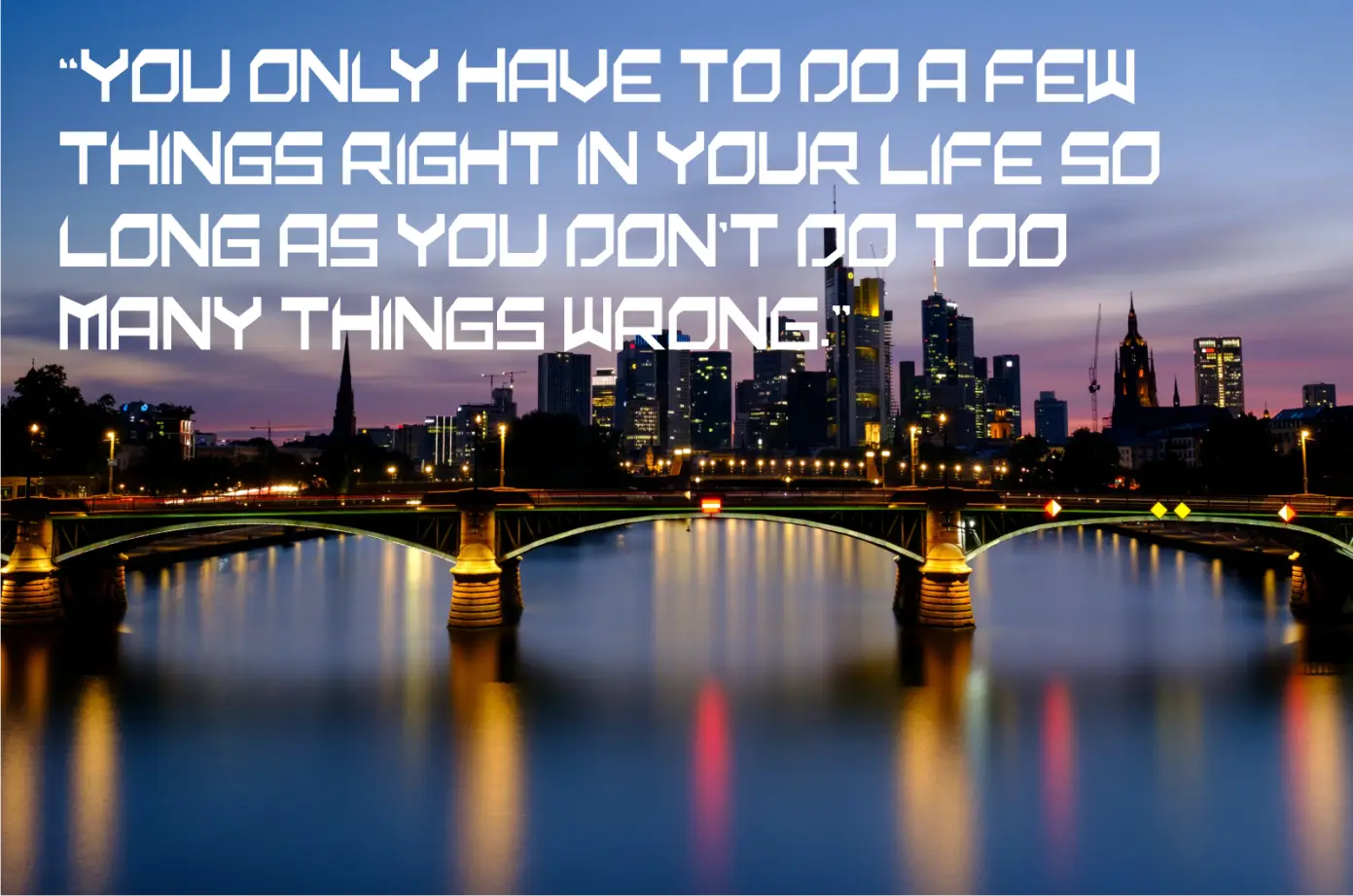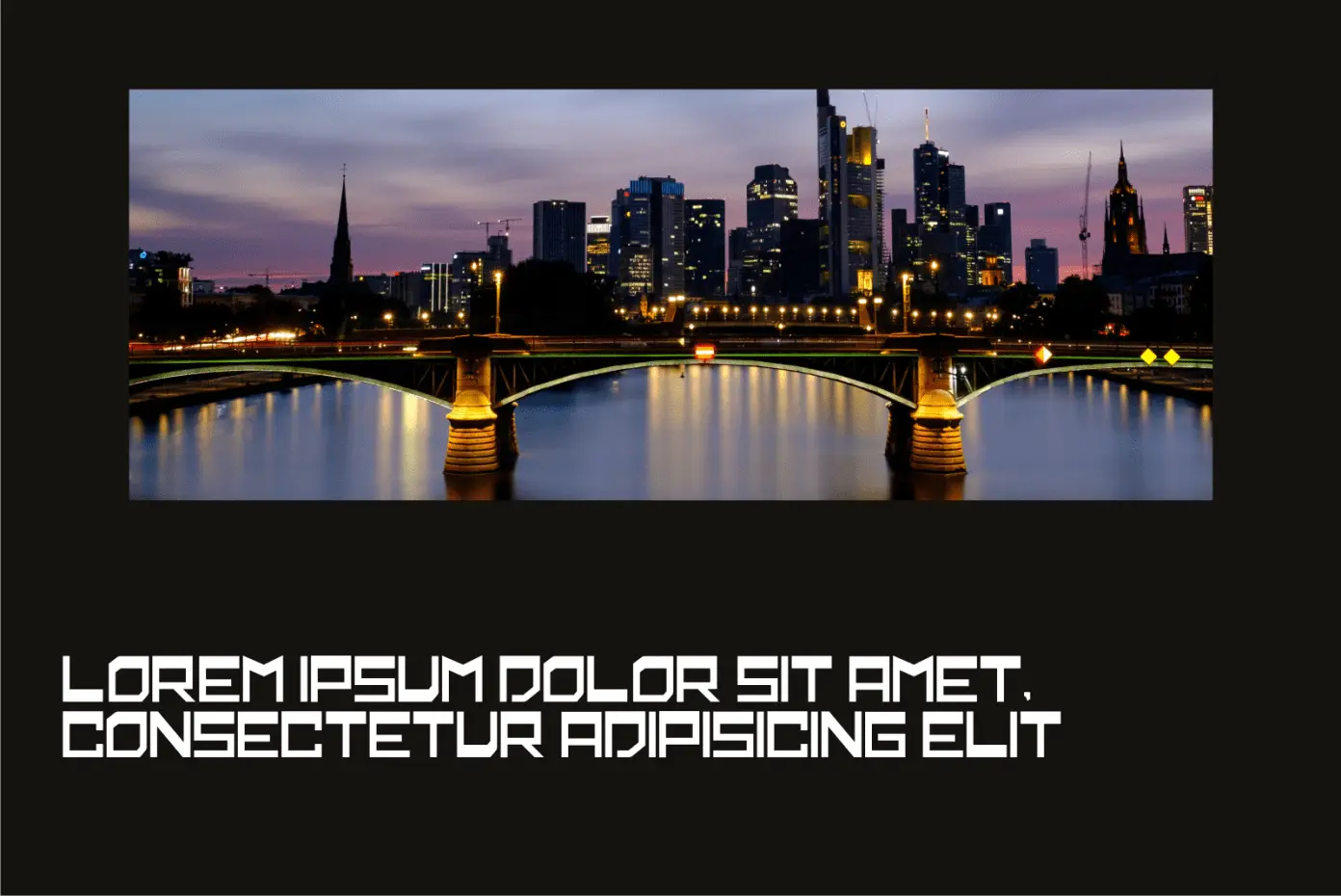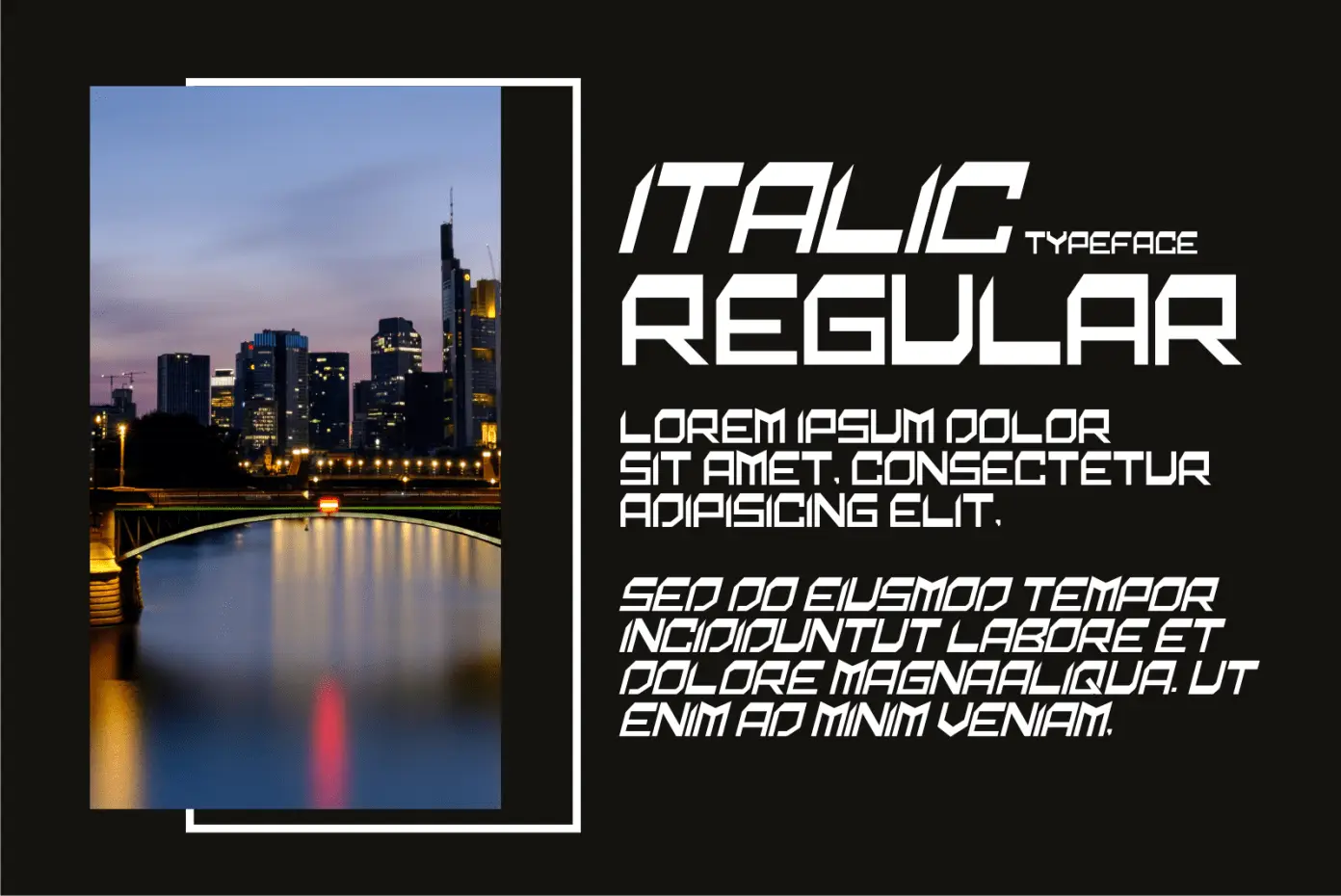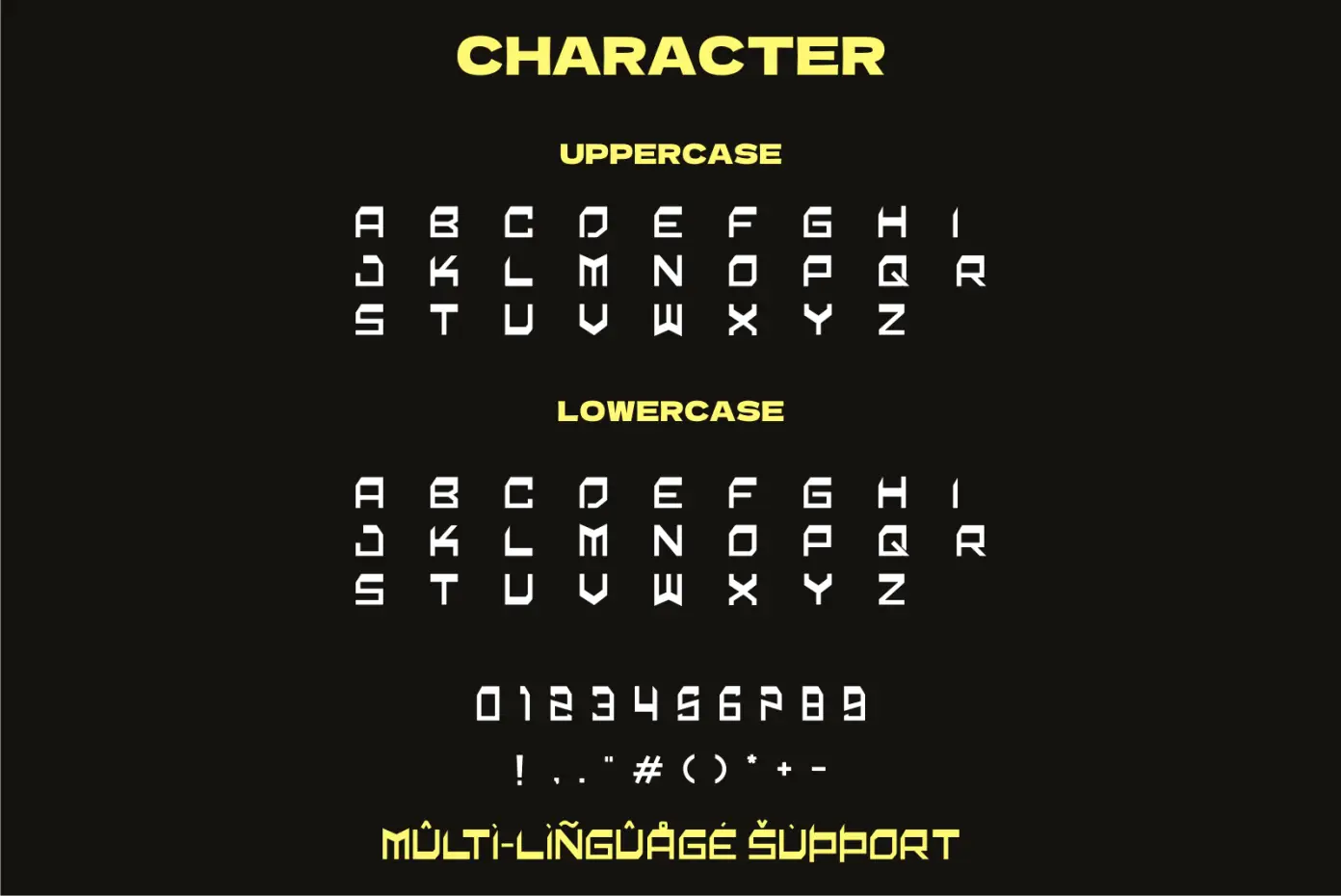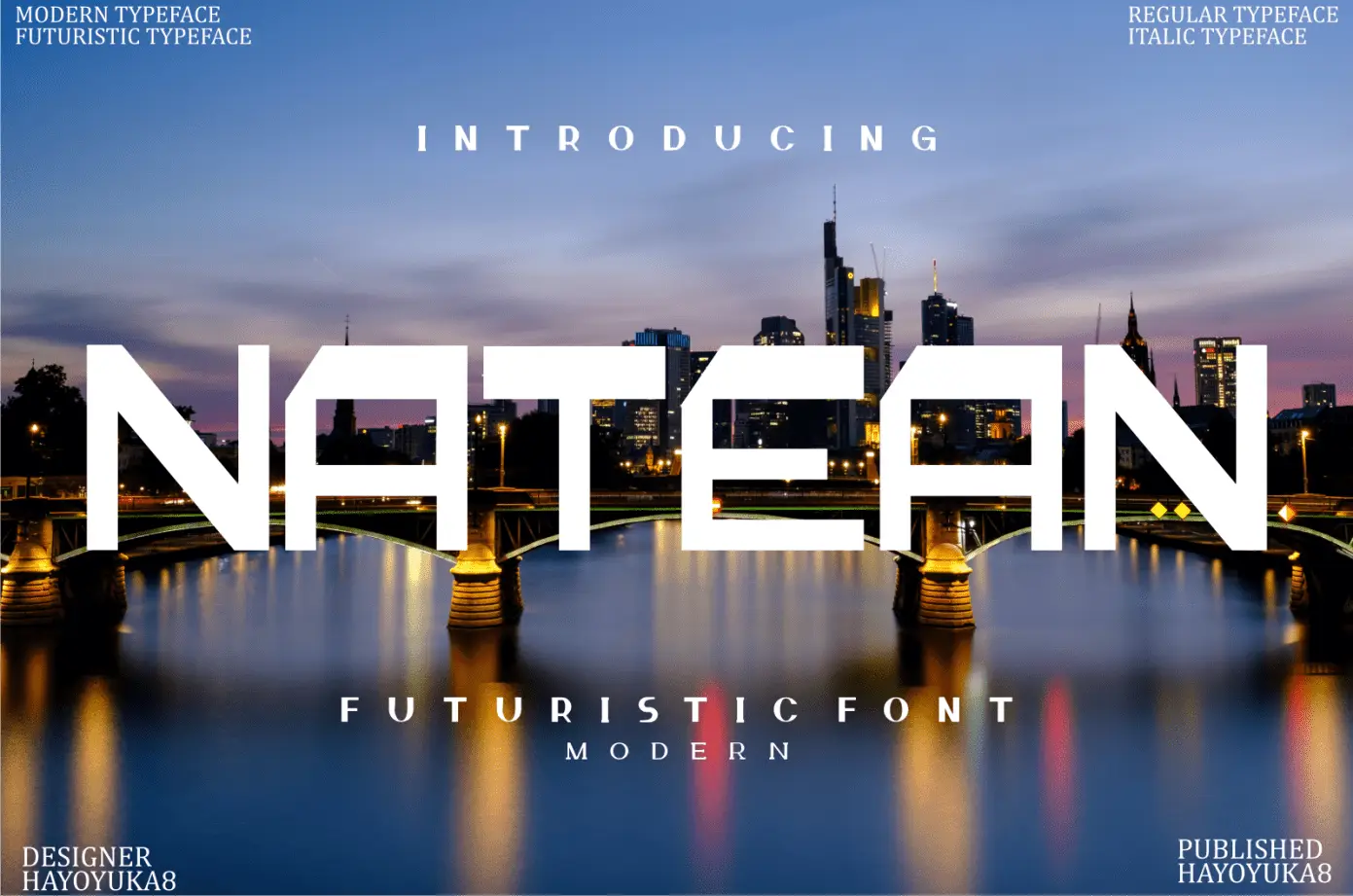
Natean Display Font
The Natean Display Font is a striking typeface designed to capture attention and make a statement. With its bold and unique letterforms, this font is perfect for a variety of creative projects.
• Distinctive display style
This font is ideal for branding, logos, posters, and web design, providing a modern touch to any visual project.